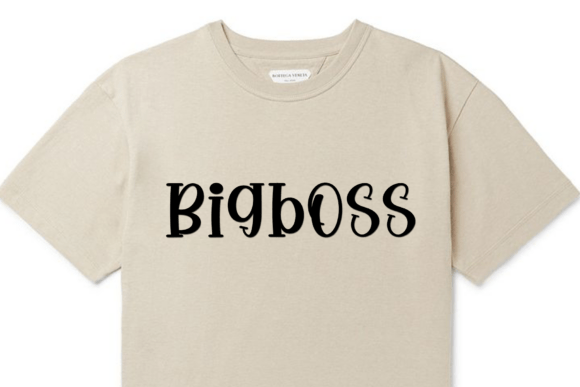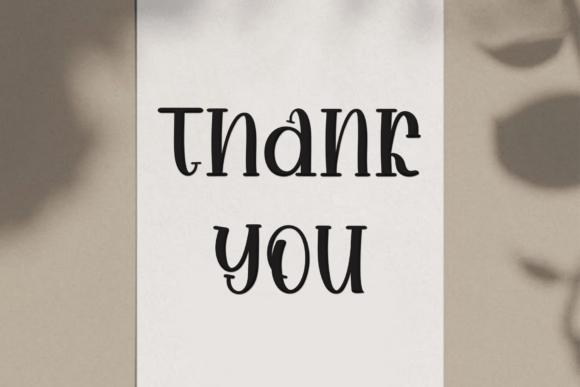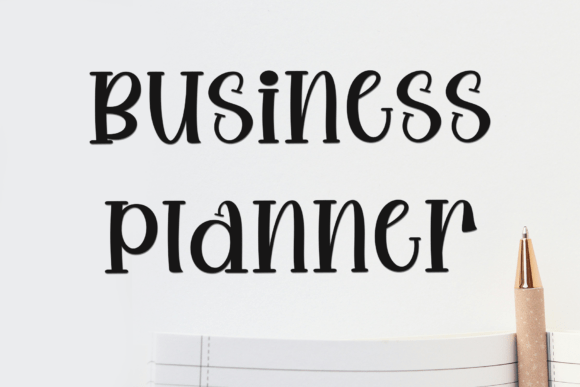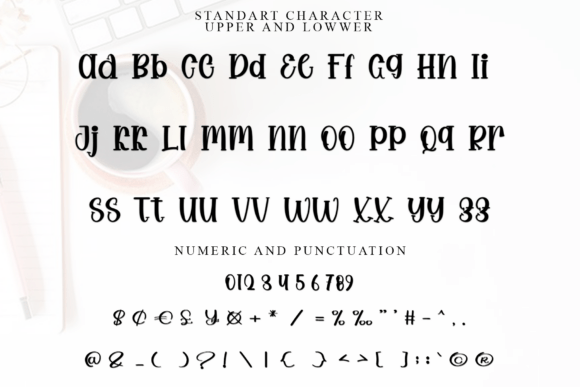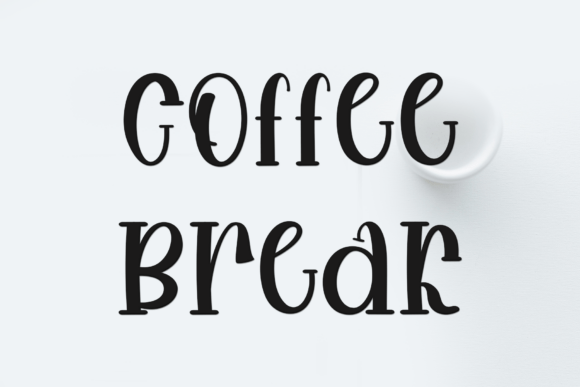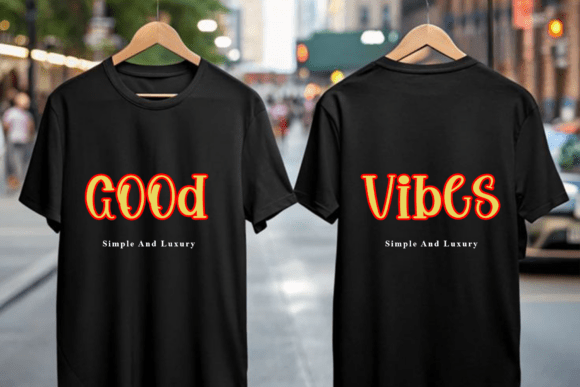
Introducing Happy Mother Font: The Perfect Addition to Your Design Arsenal
Are you tired of using the same old fonts in your design projects? Look no further than Happy Mother Font, a beautiful and eye-catching typeface that is sure to elevate your creative work. With its soft, unique touch and distinctive strokes, Happy Mother Font is the perfect choice for designers, crafters, and artists looking to add a special touch to their projects.
A Font Like No Other
Happy Mother Font is a one-of-a-kind typeface that boasts a unique and special character. Its soft, flowing strokes give it a natural and effortless look that is sure to capture the attention of your audience. Whether you’re working on a design project, crafting a handmade gift, or creating a work of art, Happy Mother Font is the perfect choice. Its versatility and wide range of characters make it ideal for use in a variety of creative applications.
With Happy Mother Font, the creative possibilities are endless. Use it to create stunning designs, craft beautiful handmade cards and gifts, or add a personal touch to your artwork. This font is perfect for:
- Design projects: Use Happy Mother Font to create eye-catching posters, flyers, brochures, and more.
- Crafts: Add a personal touch to your handmade gifts, cards, and scrapbooking projects.
- Artwork: Use Happy Mother Font to create beautiful and unique pieces of art.
Compatibility and Ease of Use
Why Choose Happy Mother Font?
So why choose Happy Mother Font over other fonts on the market? Here are just a few reasons:
- Unique and eye-catching design: Happy Mother Font boasts a distinctive and special character that sets it apart from other fonts.
- Versatility: Use Happy Mother Font in a wide range of creative applications, from design projects to crafts and artwork.
Take Your Designs to the Next Level
In conclusion, Happy Mother Font is a beautiful and eye-catching typeface that is perfect for designers, crafters, and artists looking to add a special touch to their projects. With its unique and distinctive design, versatility, compatibility, and ease of use, Happy Mother Font is the perfect choice for a wide range of creative applications. So why wait? Download Happy Mother Font today and start creating stunning designs that will leave a lasting impression.